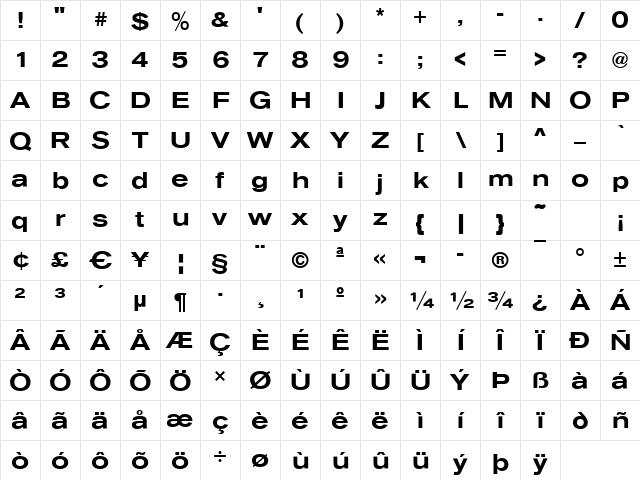
Ancona-Ex Bold Free Font
Ancona-Ex Bold
Ancona-Ex Family
Design Context for Ancona-Ex
Ancona-Ex is a composed and adaptable typeface that performs quietly and consistently across a wide range of design contexts. Its bold stroke weight gives it real presence on the page.